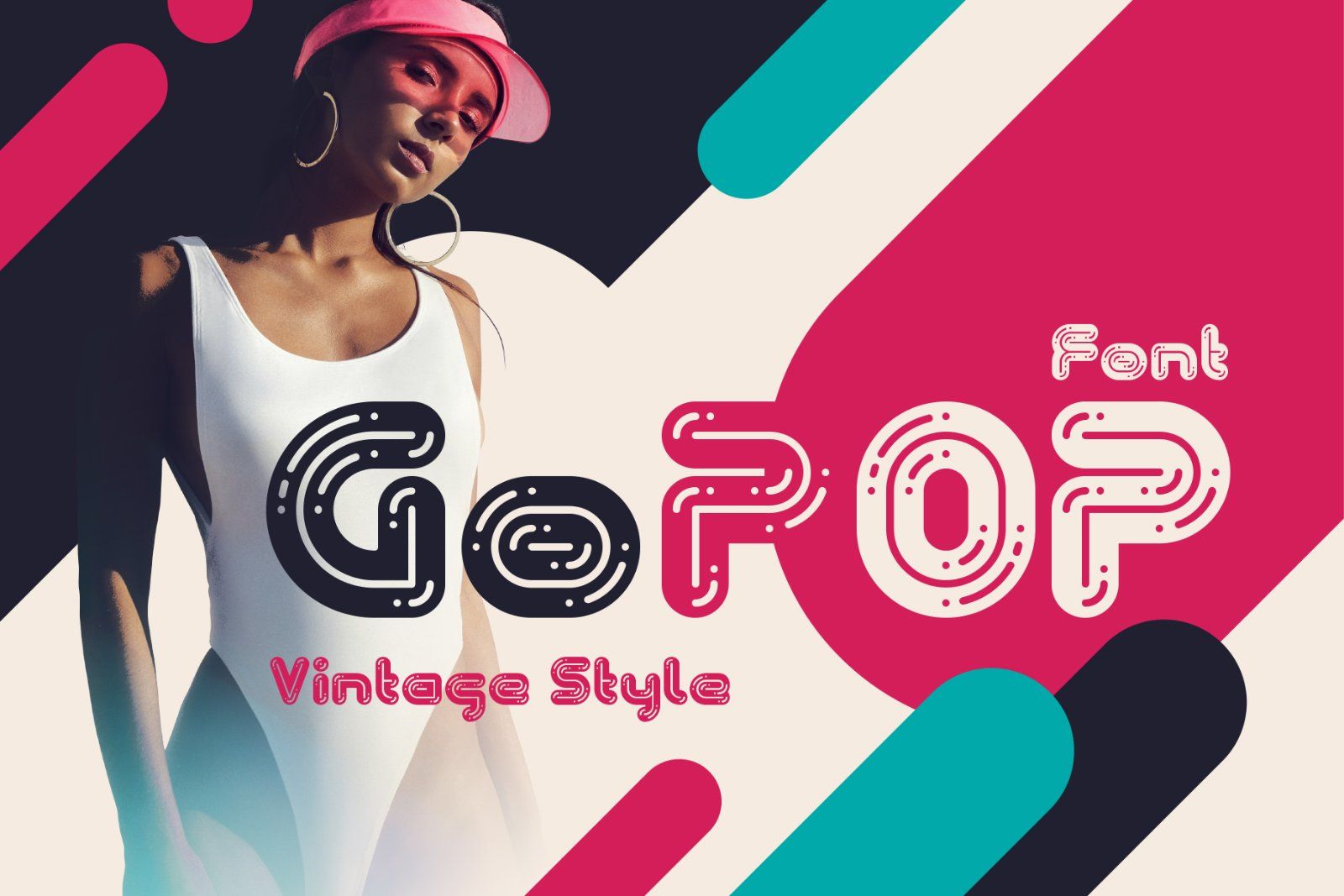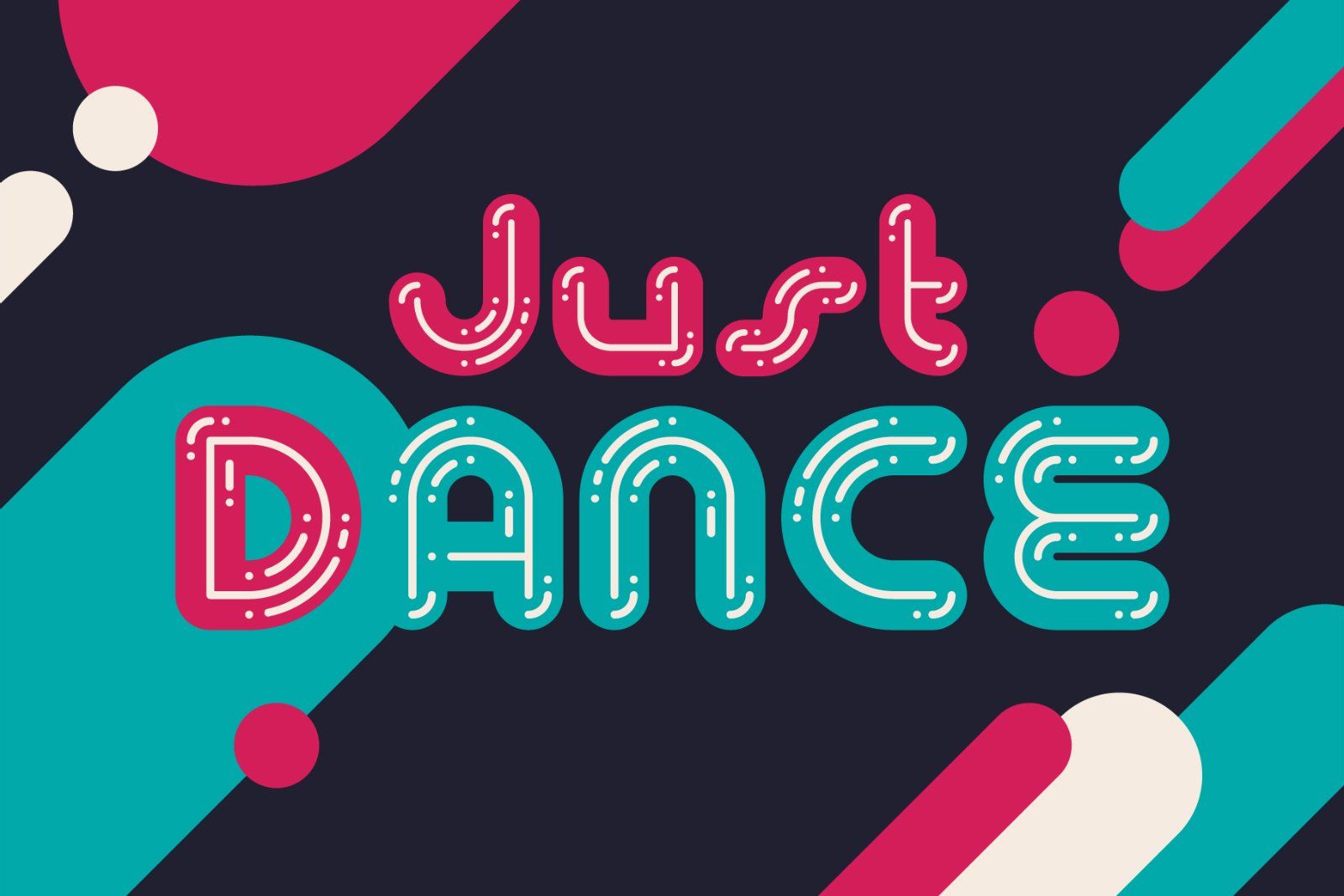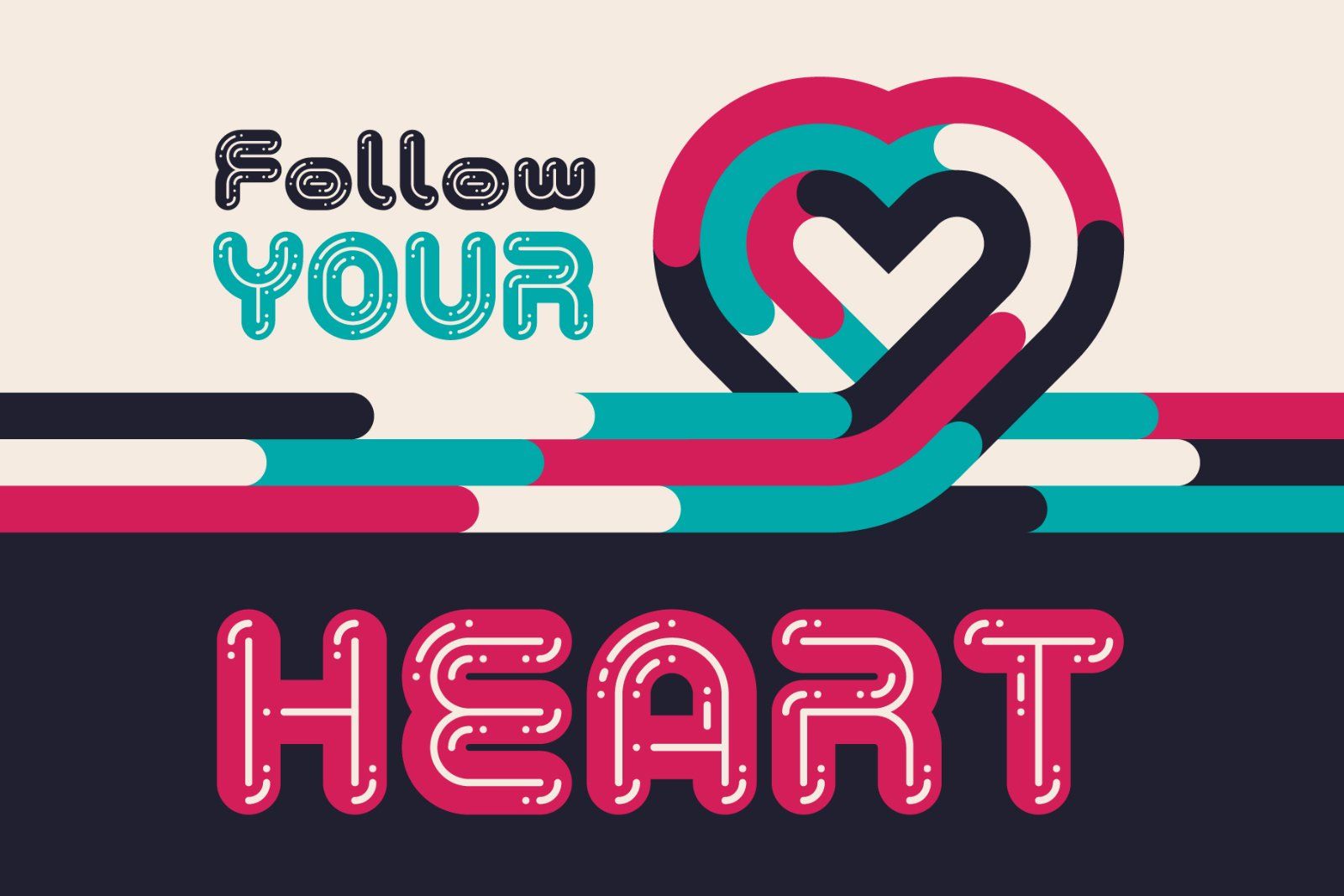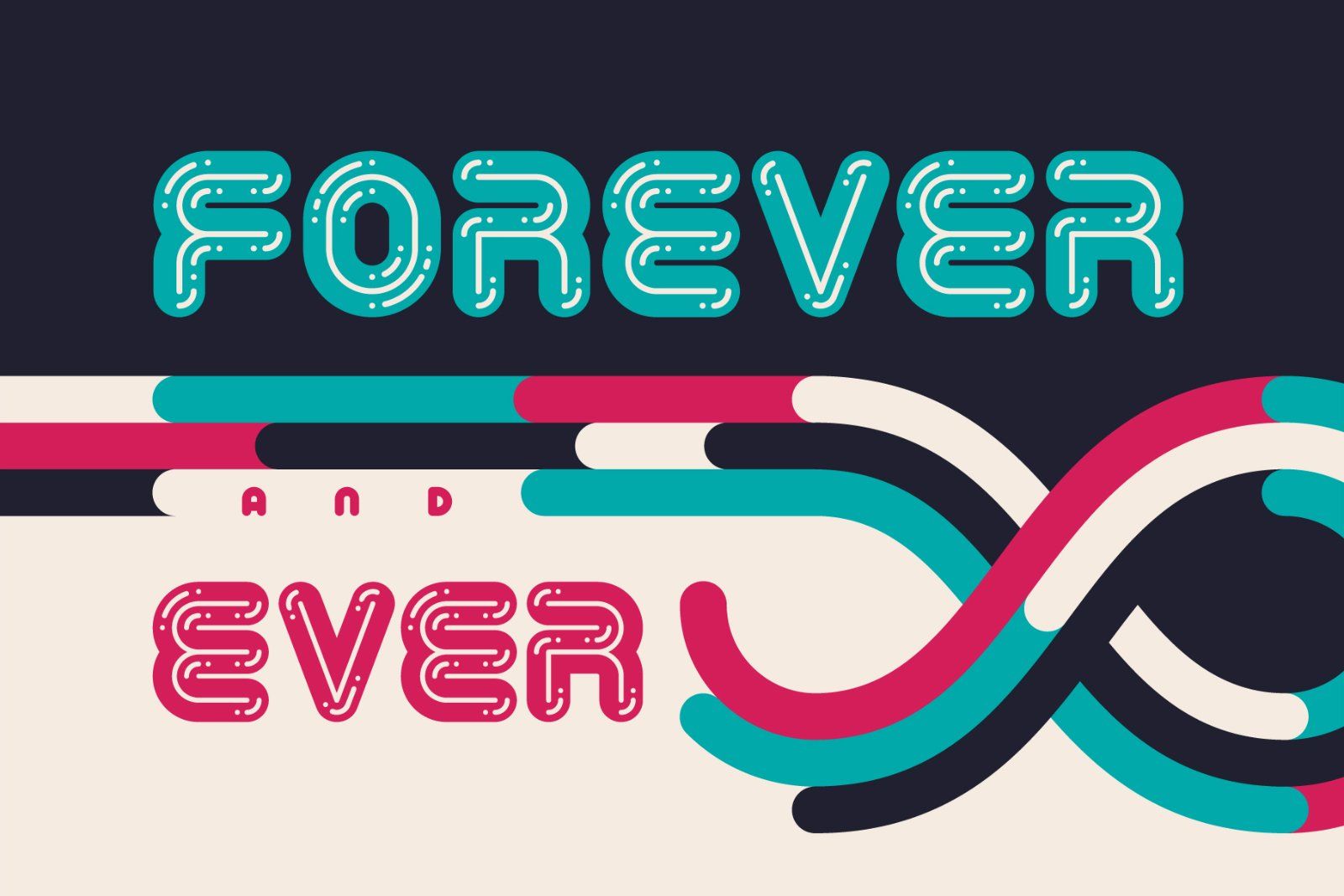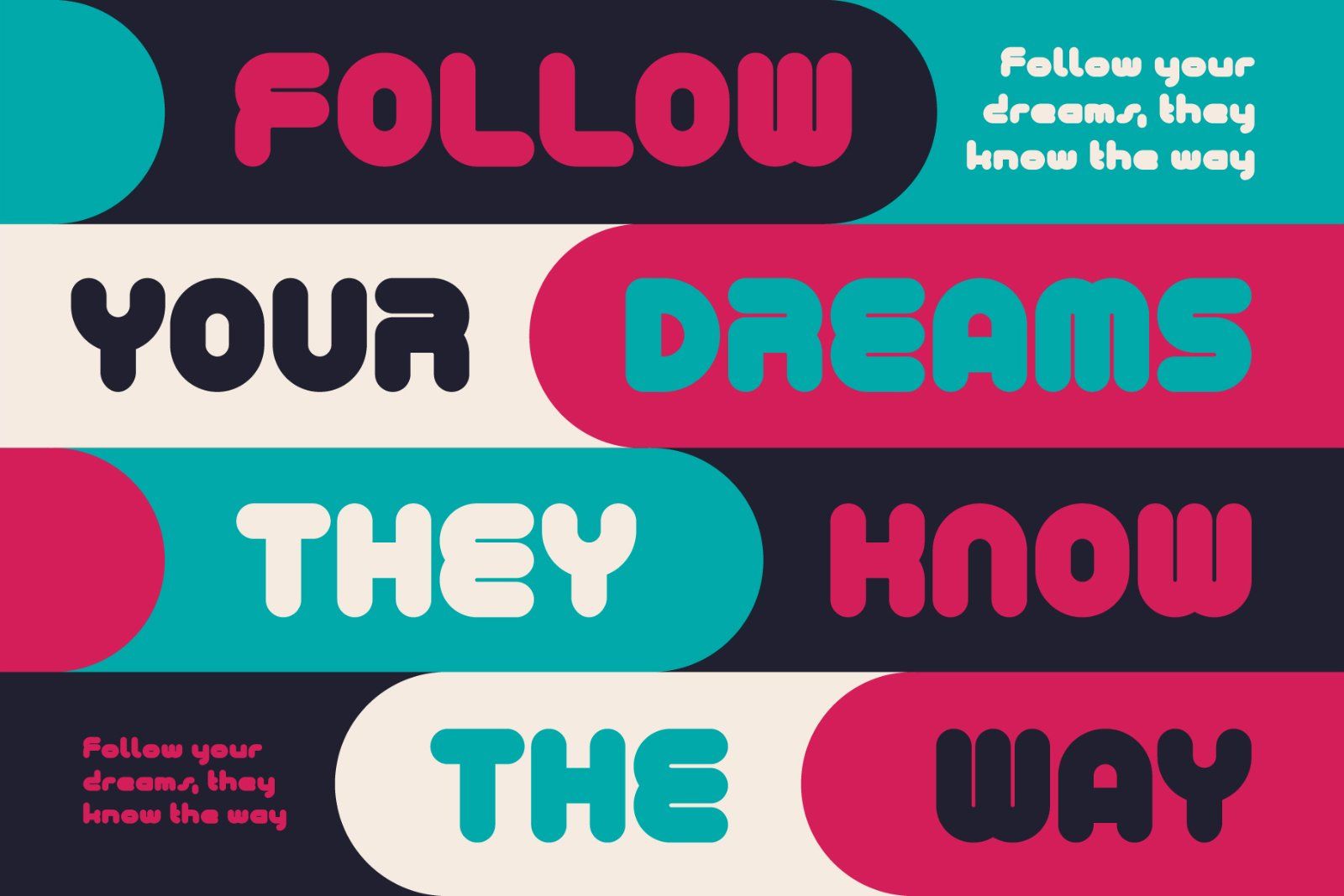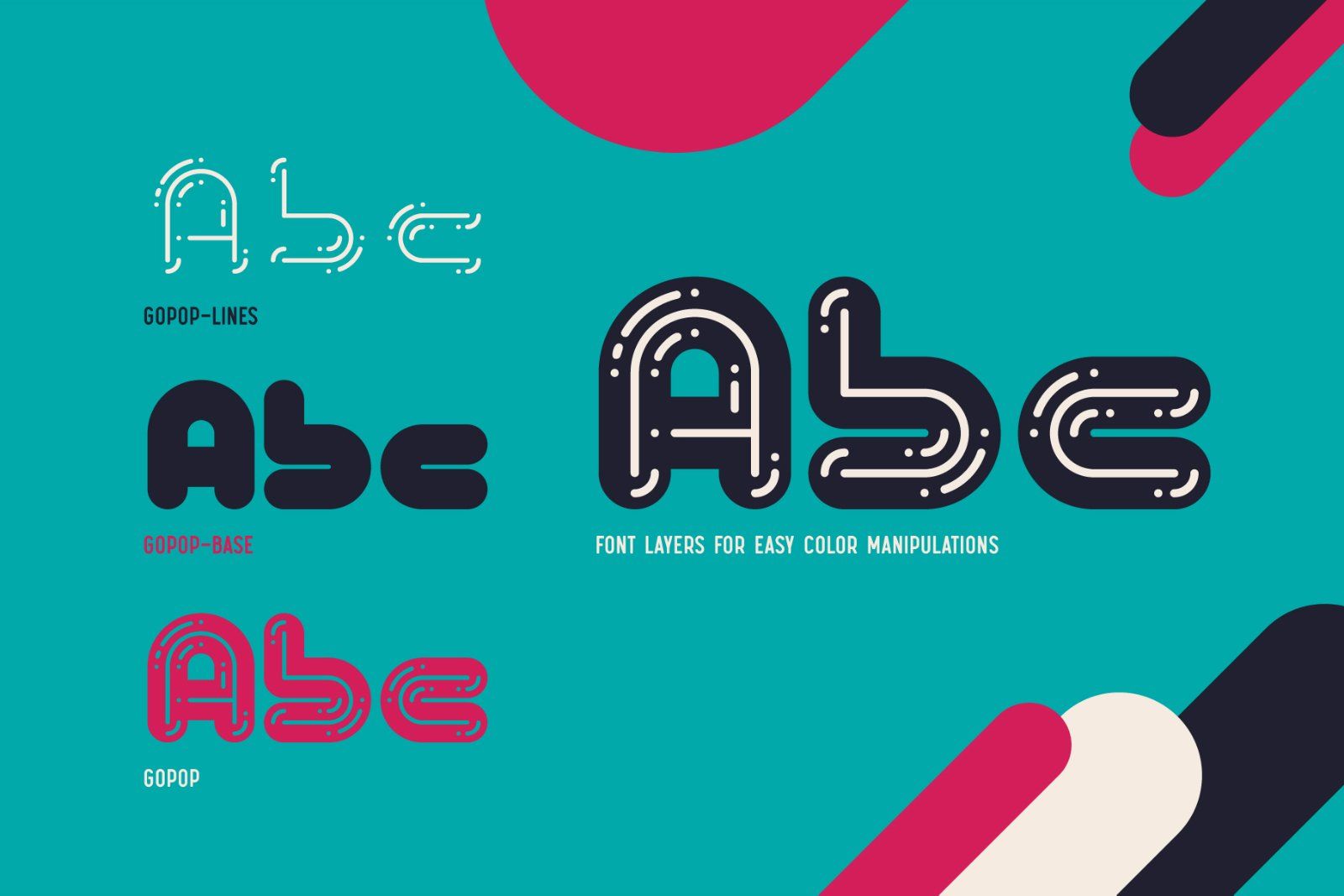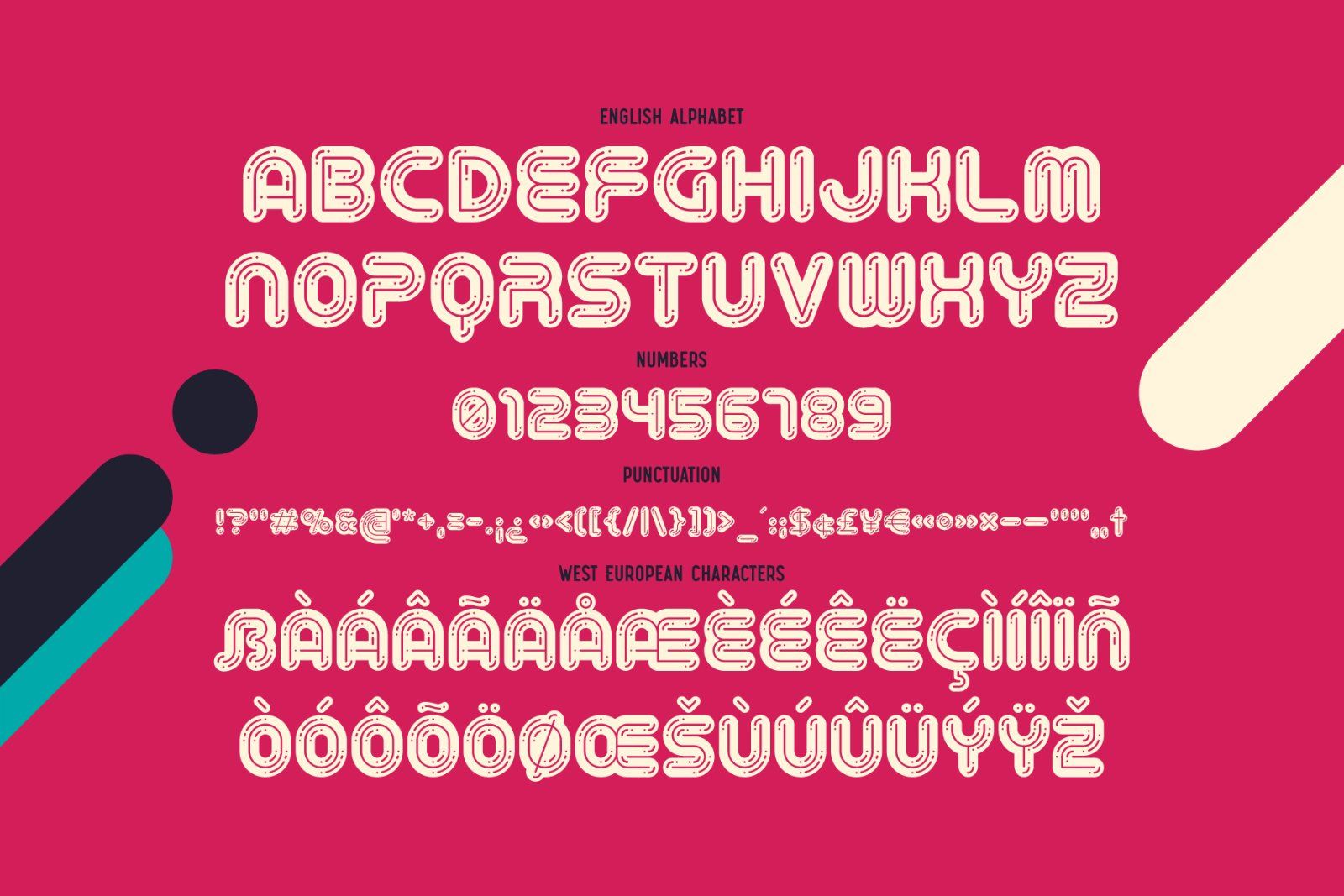
Hey! Introducing a vintage style font GoPOP. This font was inspired by 80s pop culture and has a smooth rounded shape with decorative thin lines. Base shape and additional lines can be combined from two font layers, for easy color manipulations. Also as a bonus you'll get a vector posters (2-4 screenshots).